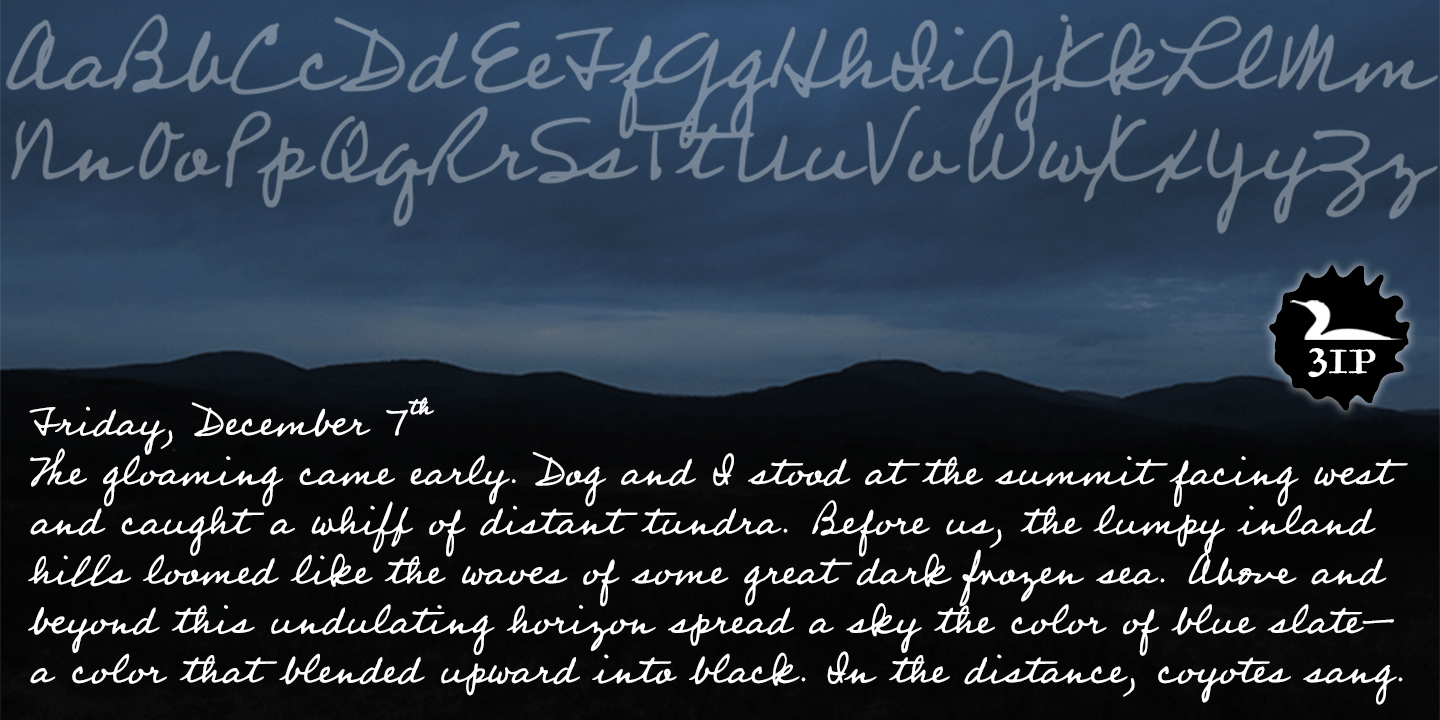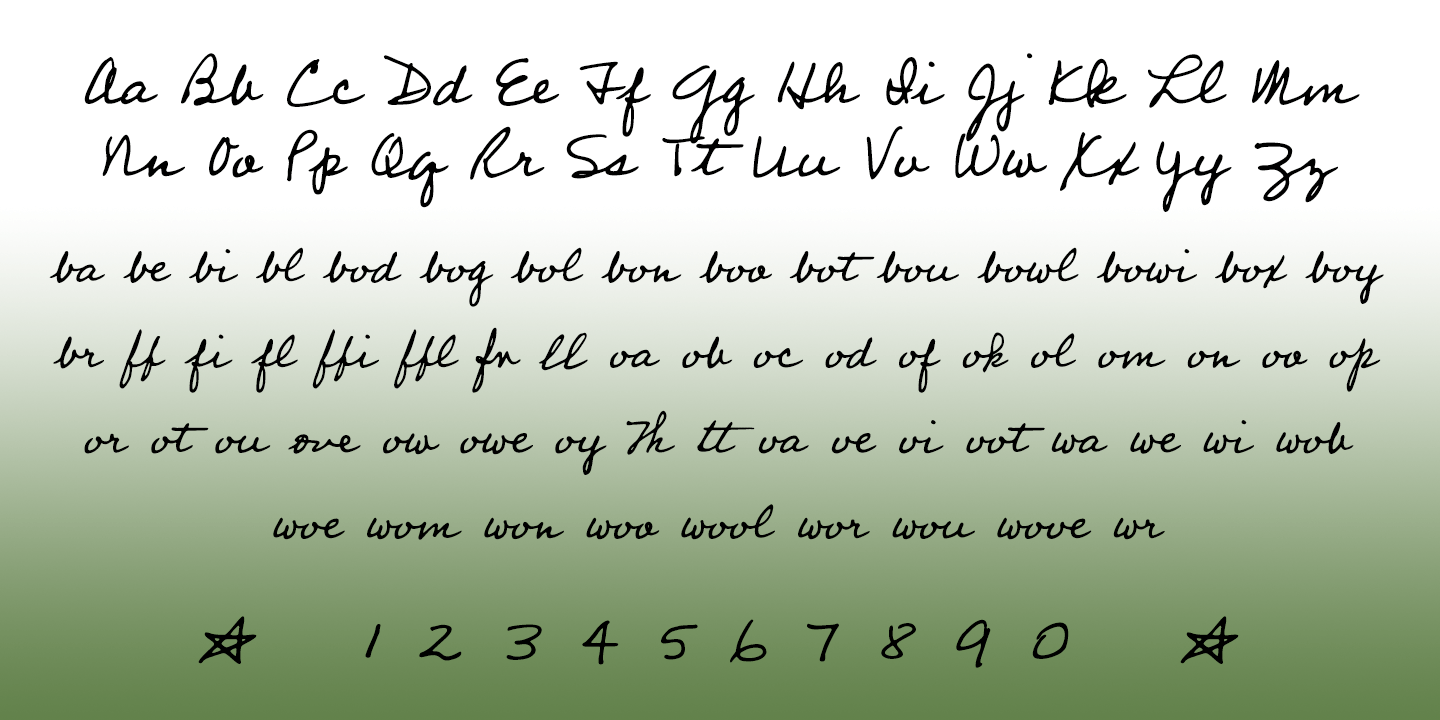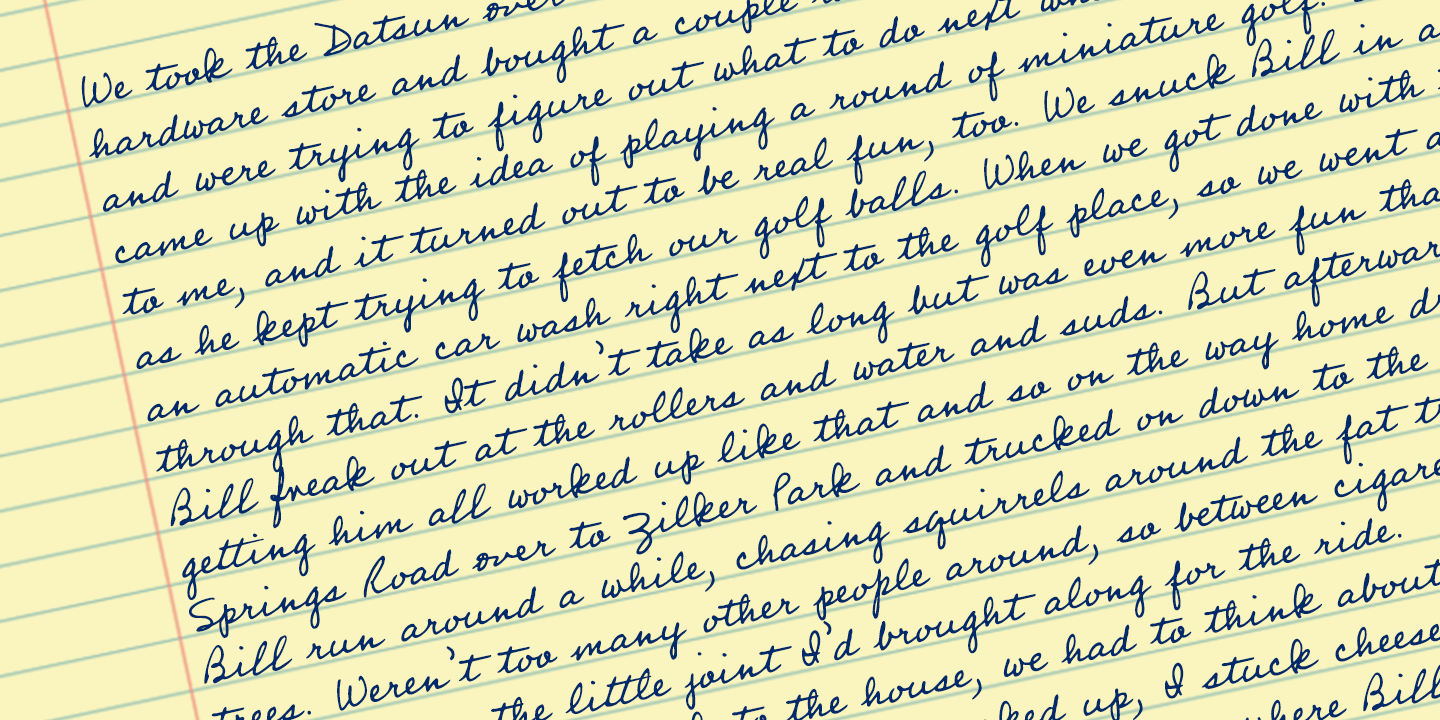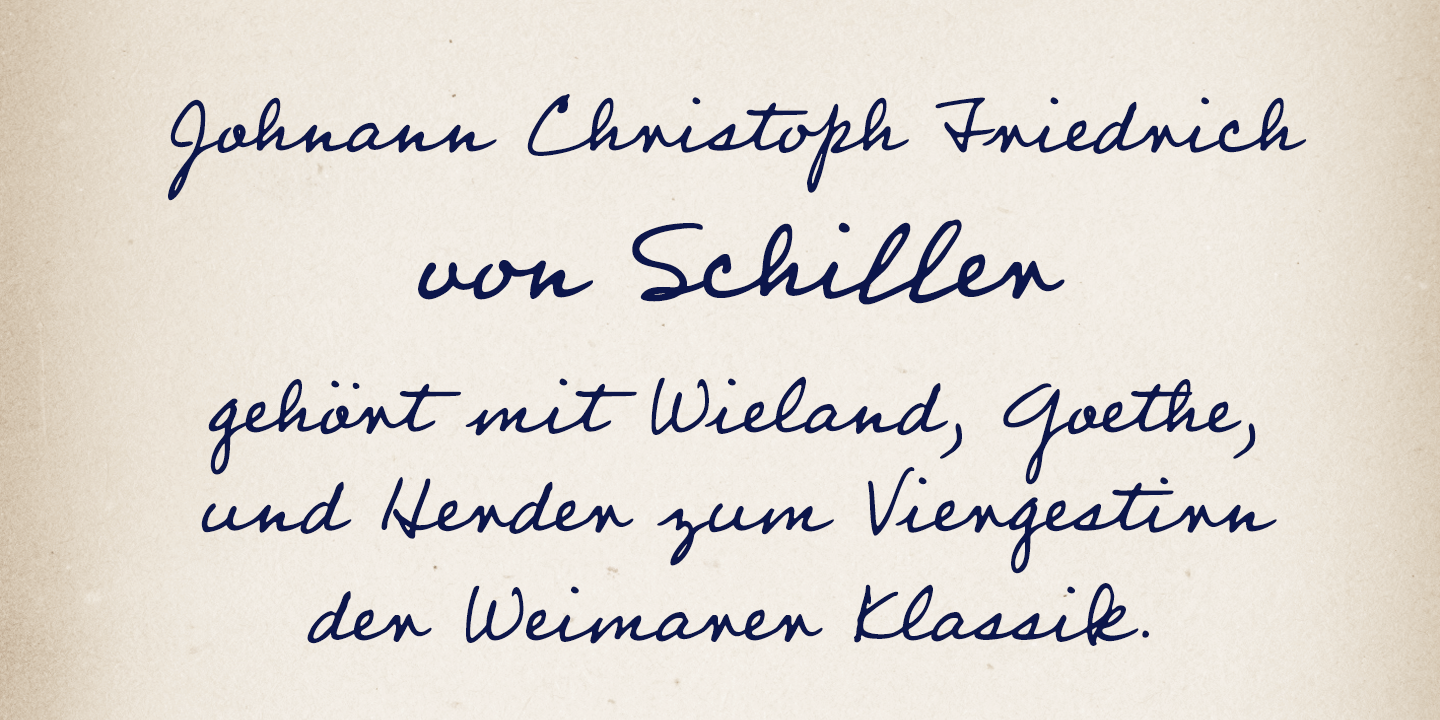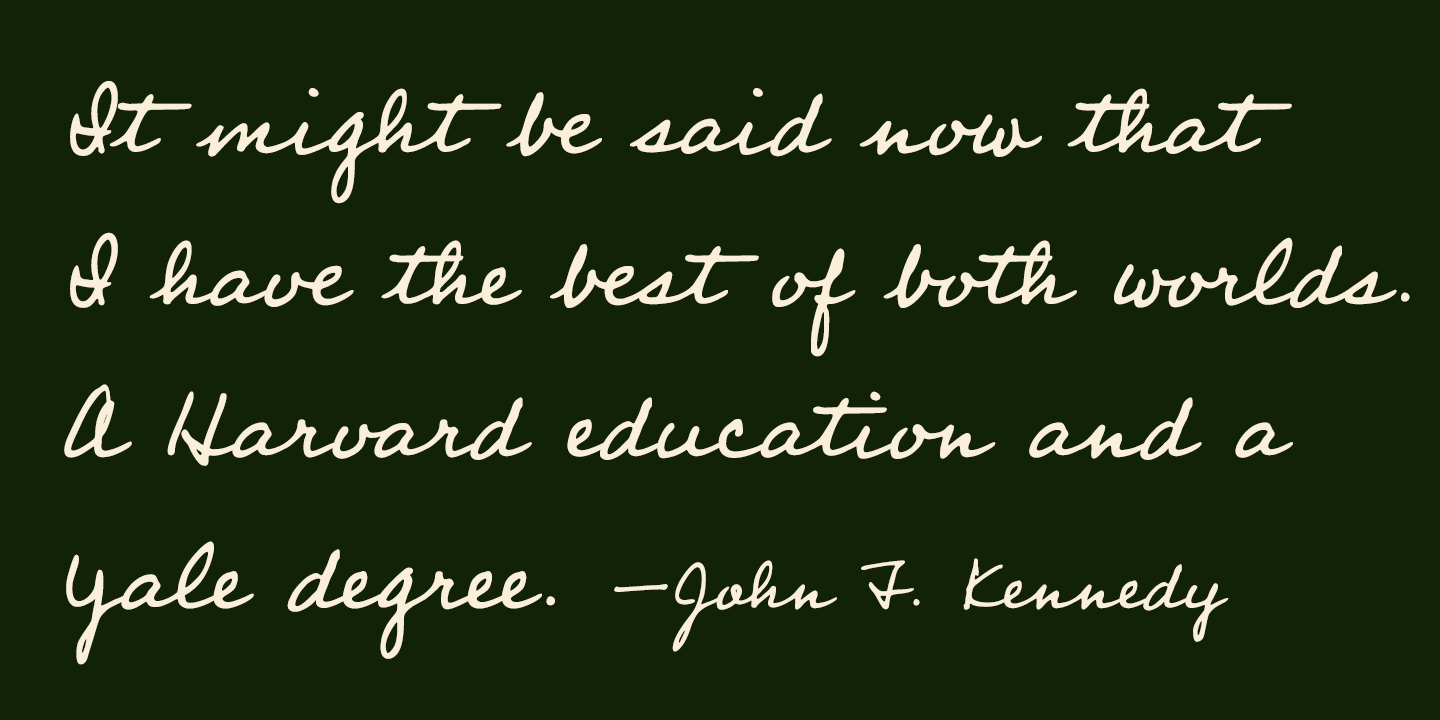
Professor
Font Family by Three Islands Press
Professor is a slightly modified version of my ol' dad's cursive hand -- a good, strong, helpful, friendly, personable hand, much like the man. Use Professor for all your casual handwriting needs: my father doesn't mind.
Comes in a single, medium-weight style.